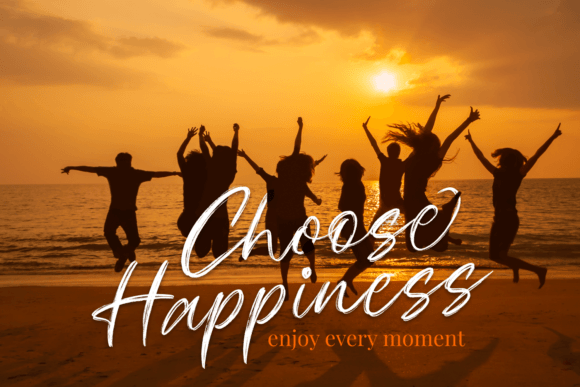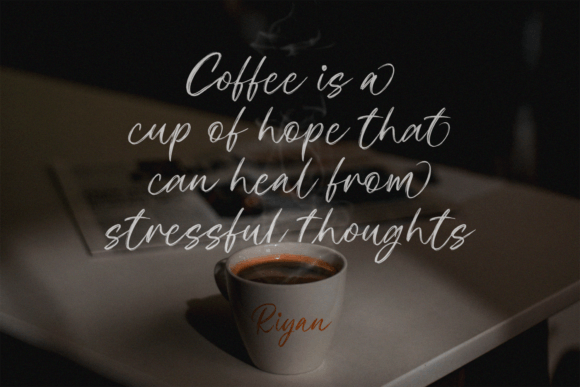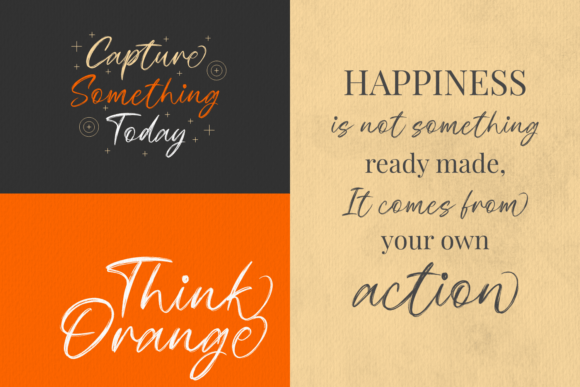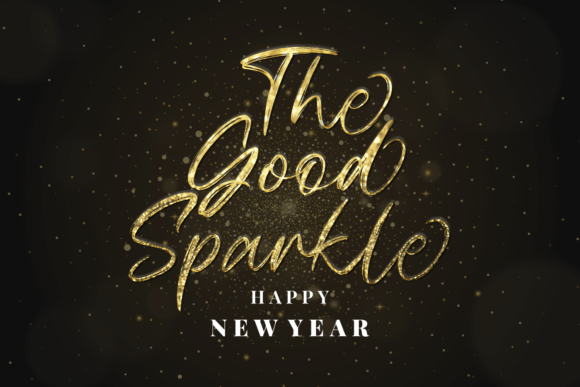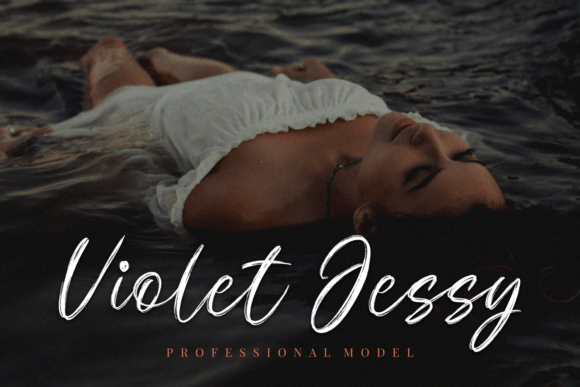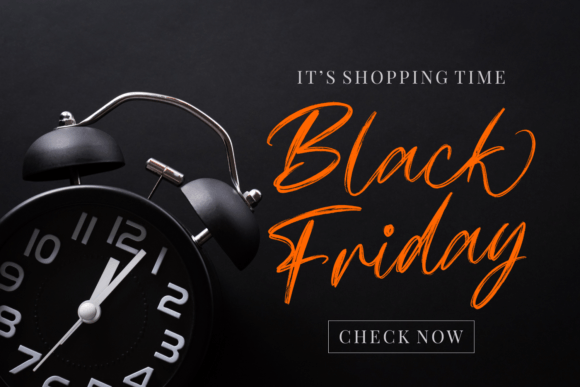
Moonlight Capture Font
About Moonlight Capture Font
Moonlight Capture is a dazzling brush script font. This font is neatly crafted and highly detailed. Whatever the topic, this font will be a wonderful asset to your font library, as it has the potential to enhance any creation.